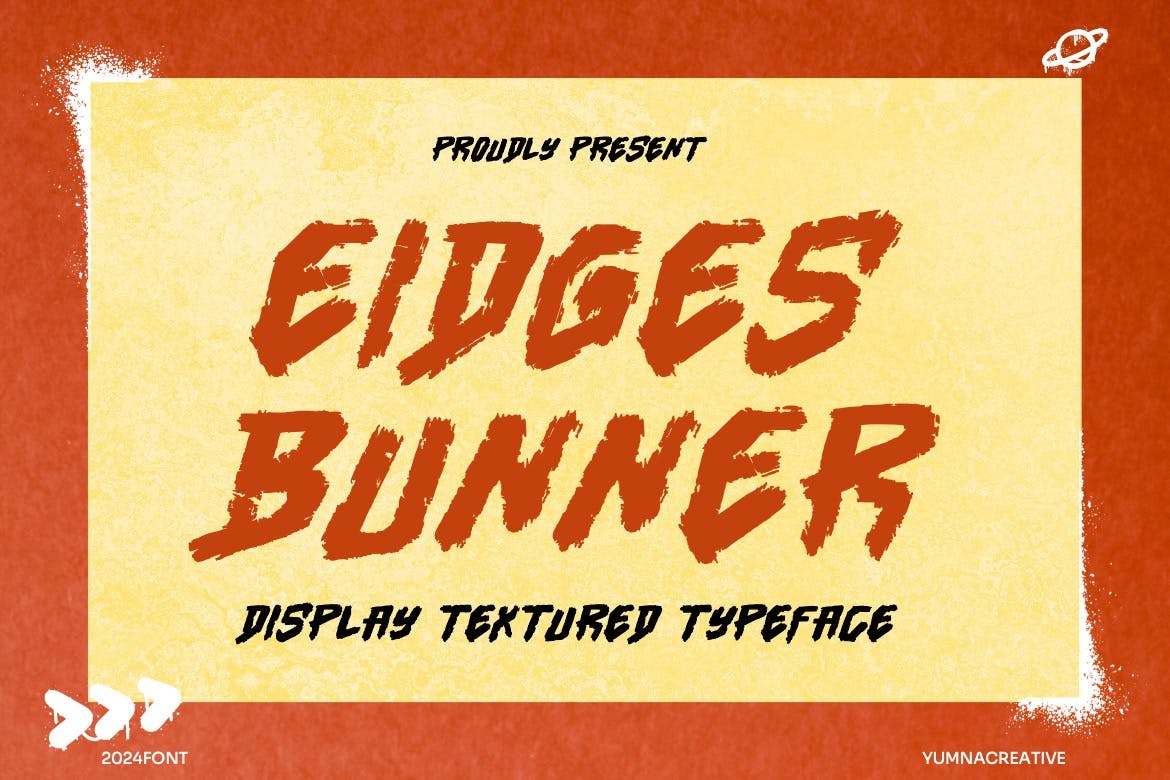
Eidges Bunner - Display Textured Font
Perfect for vintage posters, bold headlines, branding logos, apparel design, signage, packaging, and social media graphics.
The Eidges Bunner - Display Textured Font excites designers with its rugged texture, retro charm, and strong display presence that demands attention.
The Eidges Bunner - Display Textured Font Free Download is a powerhouse typeface for projects that need a bold, weathered, and vintage-inspired look. With its rough textures and display-focused style, this font captures the essence of handcrafted sign painting and traditional print techniques. It is perfect for making headlines stand out, adding character to branding, or giving packaging a timeless appeal.
One of the main strengths of Eidges Bunner - Display Textured Font is its ability to evoke nostalgia while still feeling modern and relevant. Its textured finish adds depth and personality, making it ideal for designs that need both impact and artistry. Whether you are working on a retro beer label, an old-school poster, or a contemporary lifestyle brand, this font provides the perfect balance between rugged charm and professional quality.
In marketing and branding, Eidges Bunner shines as a statement-maker. Its bold uppercase forms are perfect for catching the eye, while the textured detailing adds authenticity. This makes it an excellent choice for industries like fashion, craft beverages, outdoor gear, or music events where a strong visual identity is key.
For designers working in digital media, the font’s textured style stands out beautifully on screens, especially when paired with high-contrast backgrounds and striking imagery. It works exceptionally well in hero banners, Instagram ads, and product mockups where you want to create a memorable first impression.